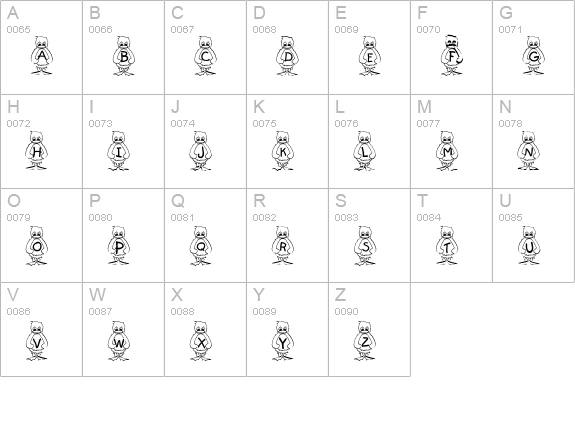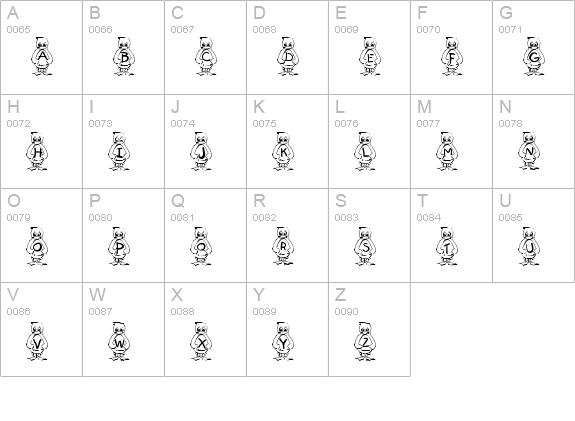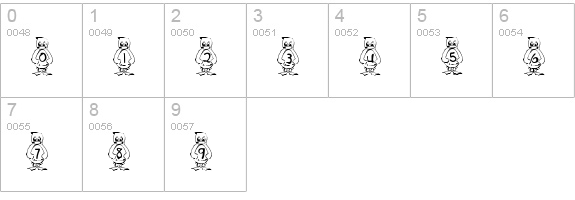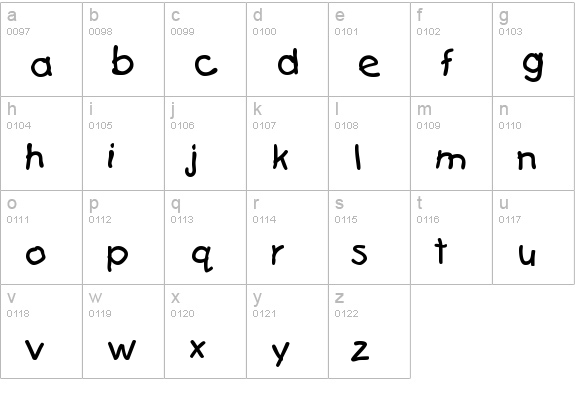
Pingu Font Details
Introducing the delightful and playful Pingu font, a charming typeface that exudes fun and character. This unique font captures the essence of whimsy and creativity, making it perfect for a wide range of design projects. With its rounded edges and friendly appearance, Pingu is sure to add a touch of joy to any design. What makes Pingu font even more appealing is that it is completely free to download! Yes, that's right - you can easily access this delightful font at FontsMarket.com without any cost. Whether you're working on a children's book, a greeting card, a poster, or any other creative project, Pingu font is sure to bring a smile to your audience's face. So why wait? Add a dose of playfulness to your designs with Pingu font today, and let your creativity soar! Download it for free at FontsMarket.com and start spreading joy with every letter you type.